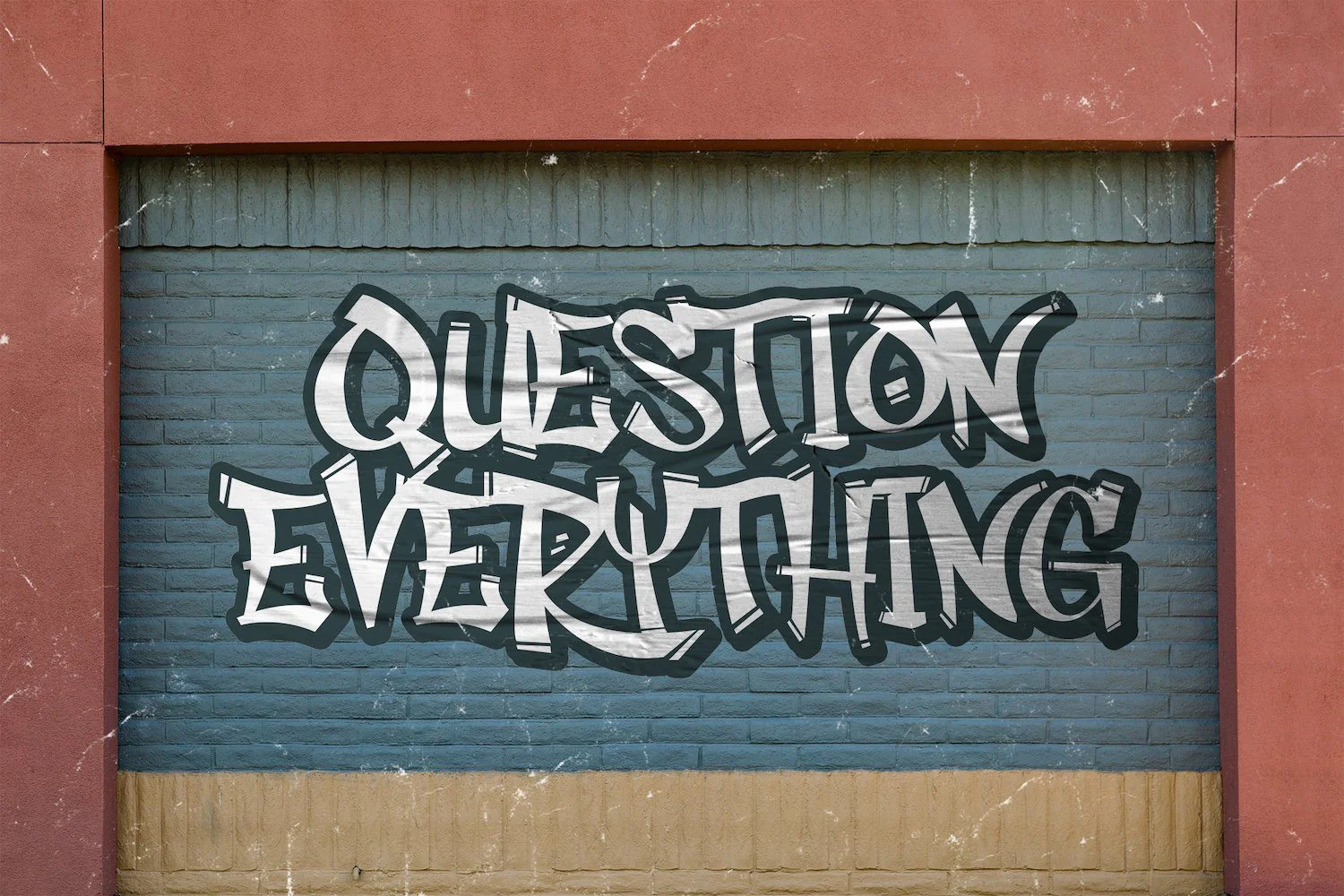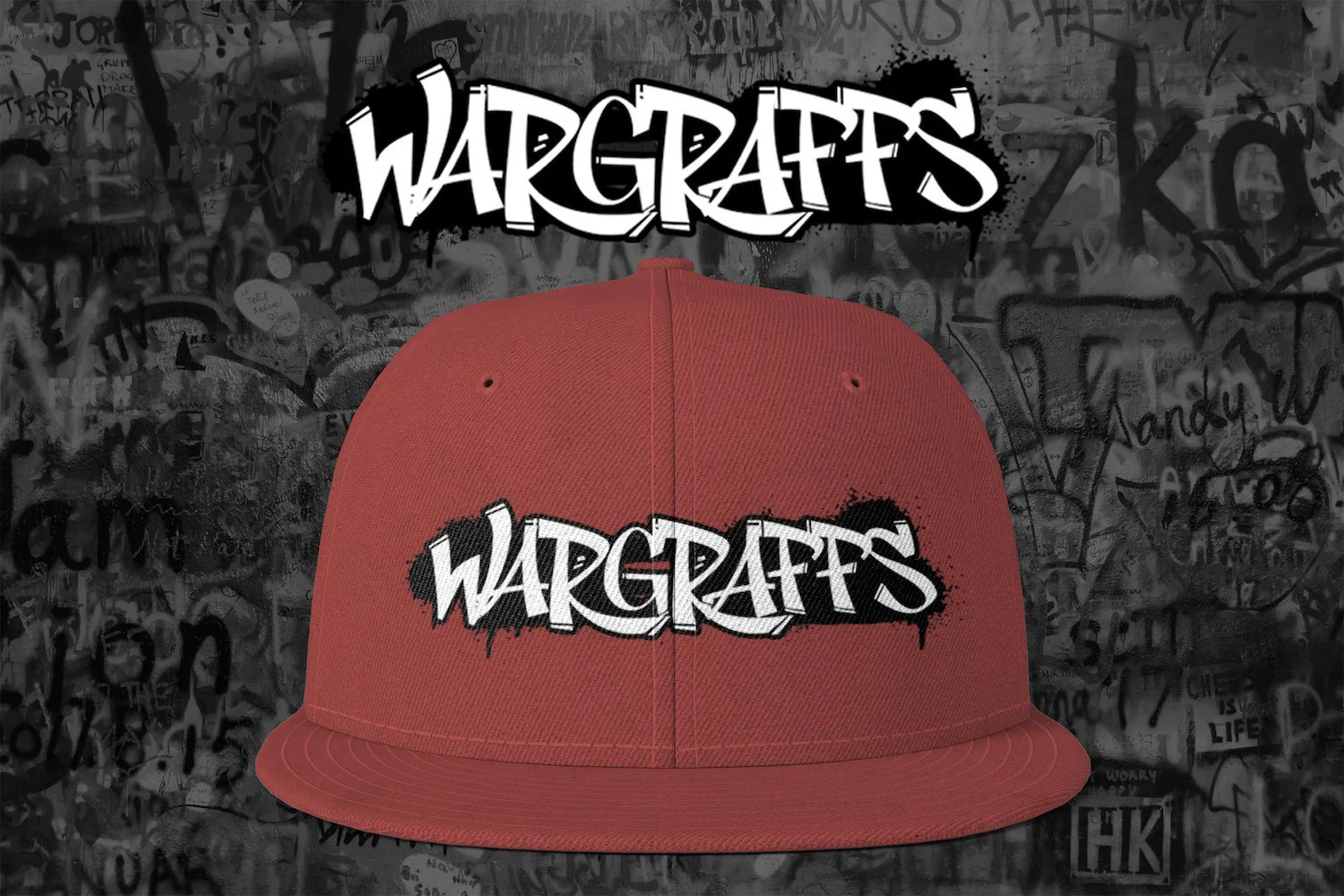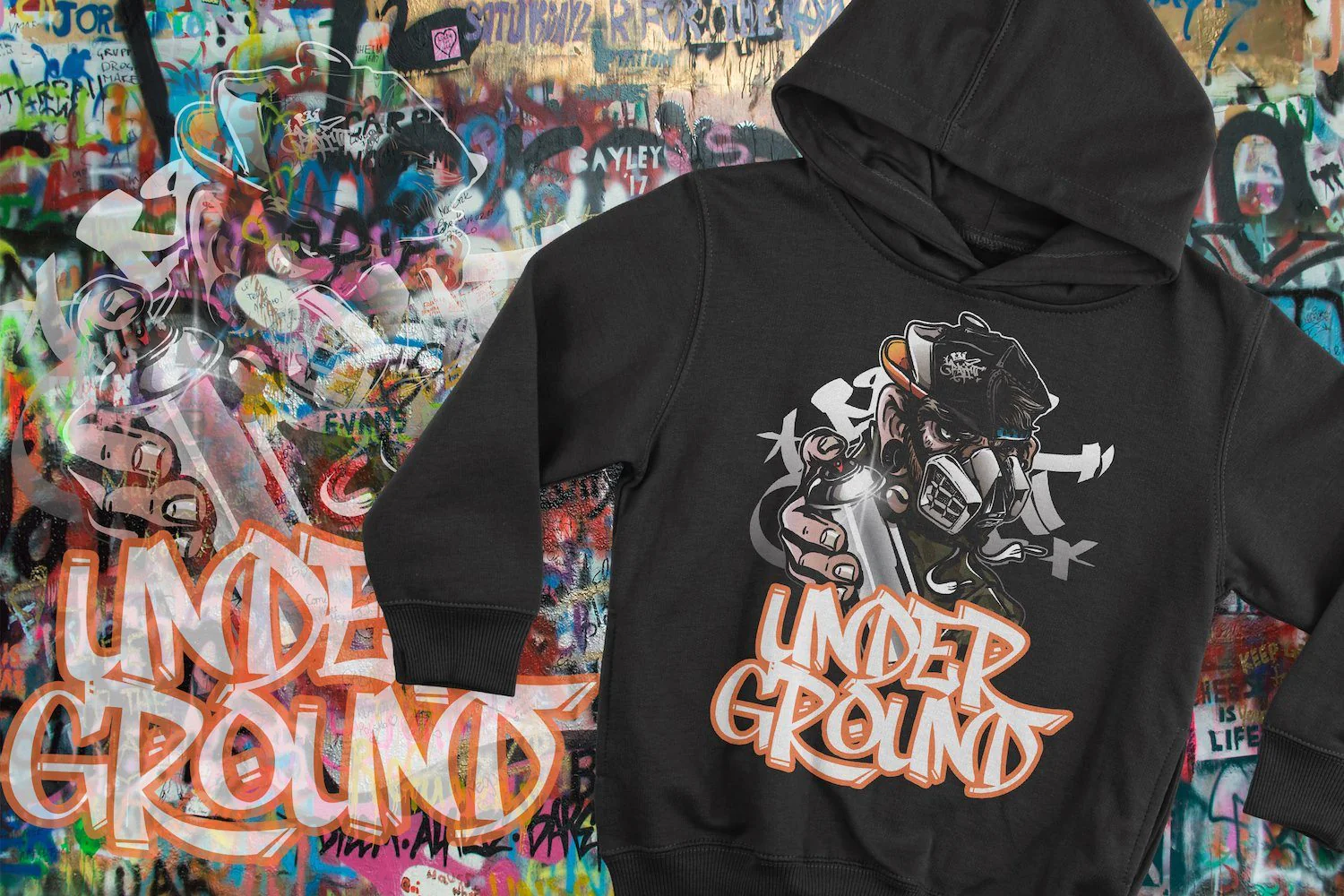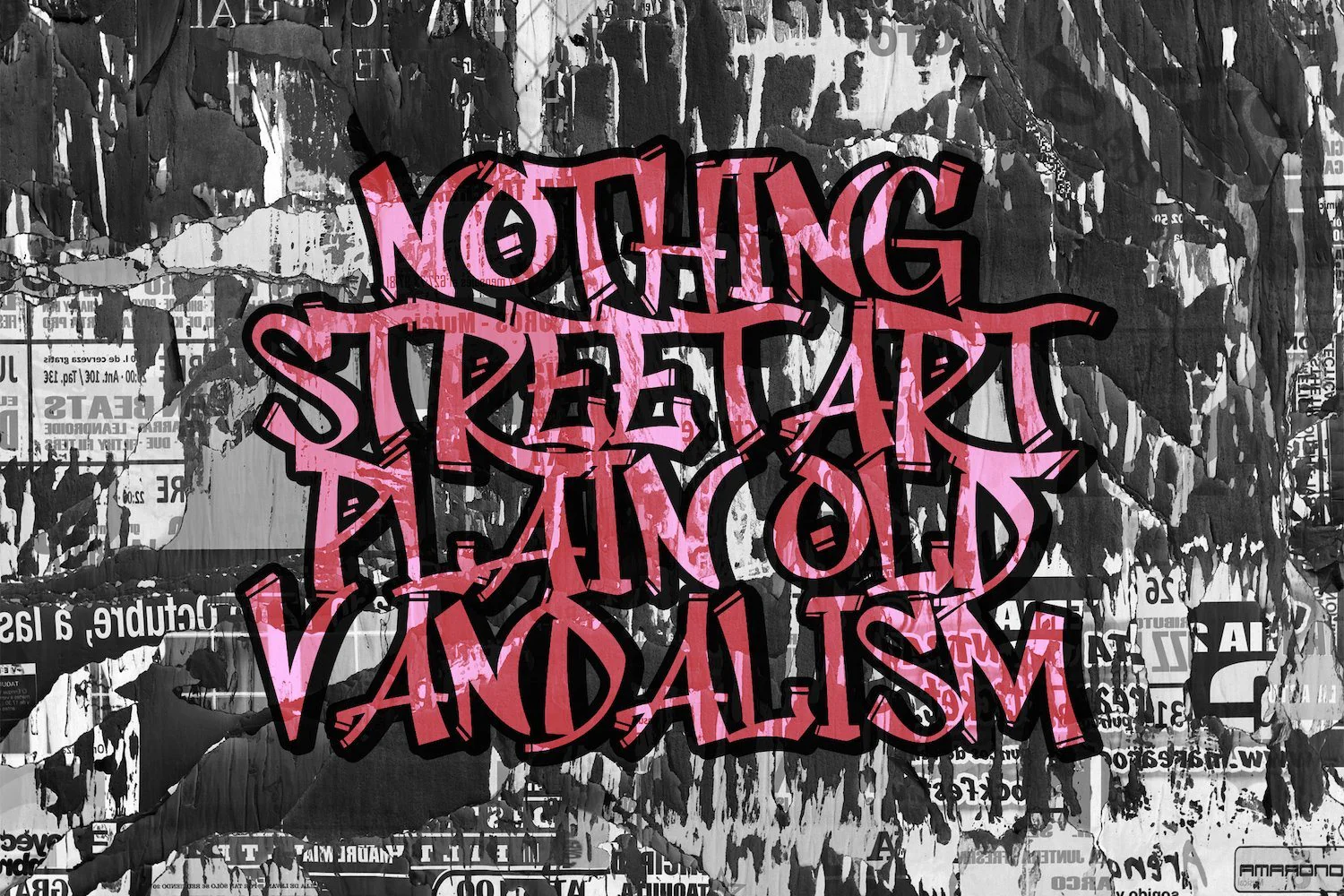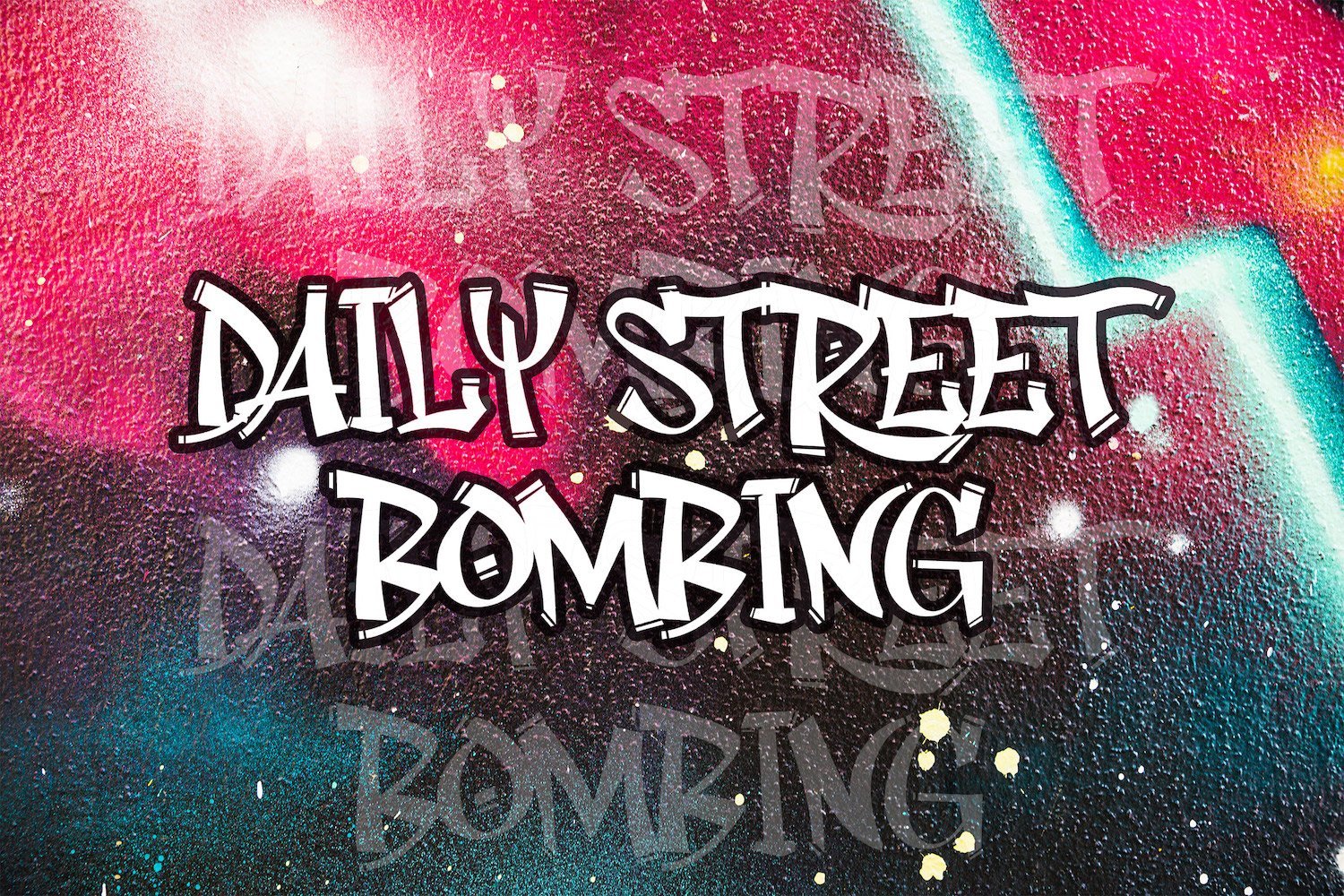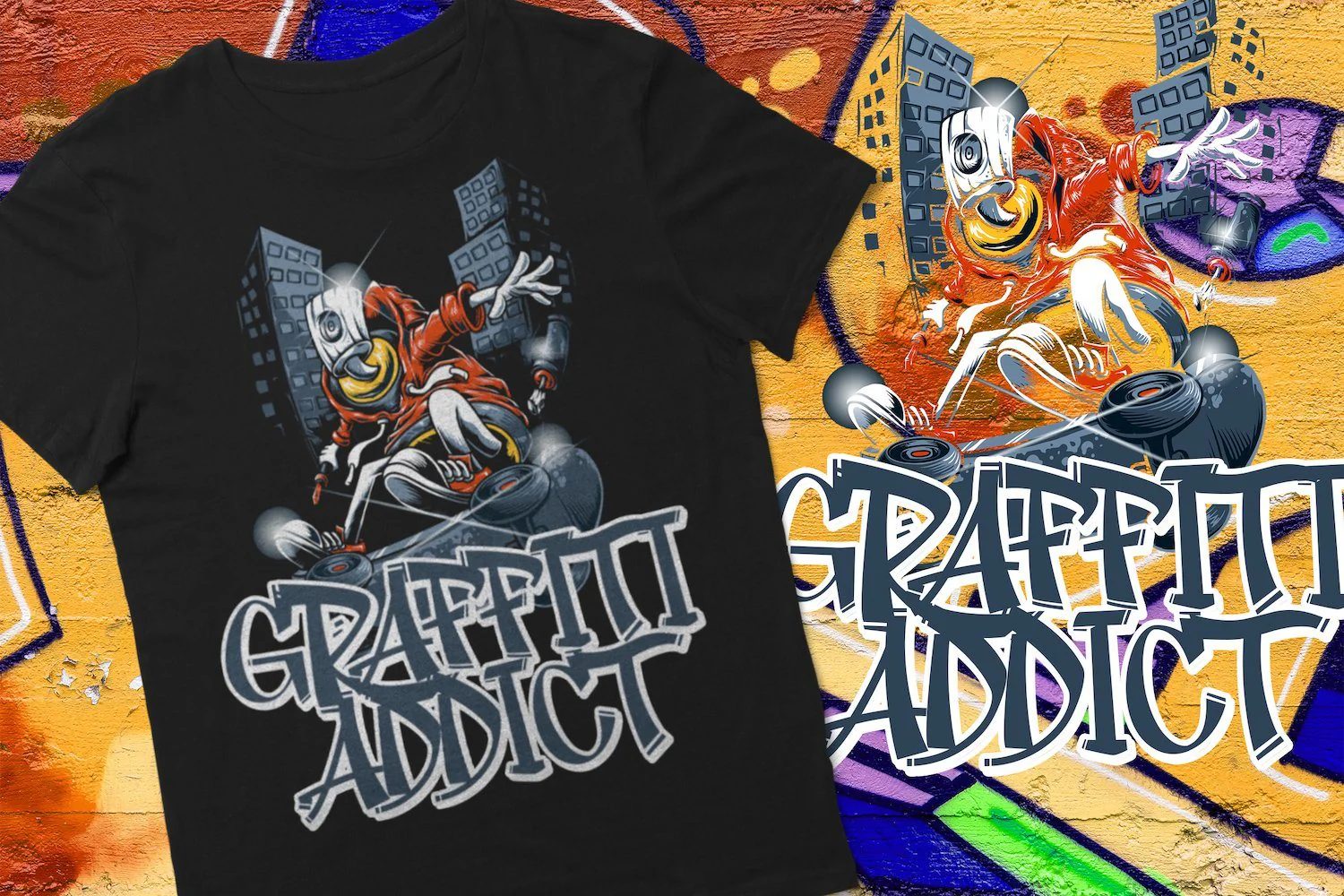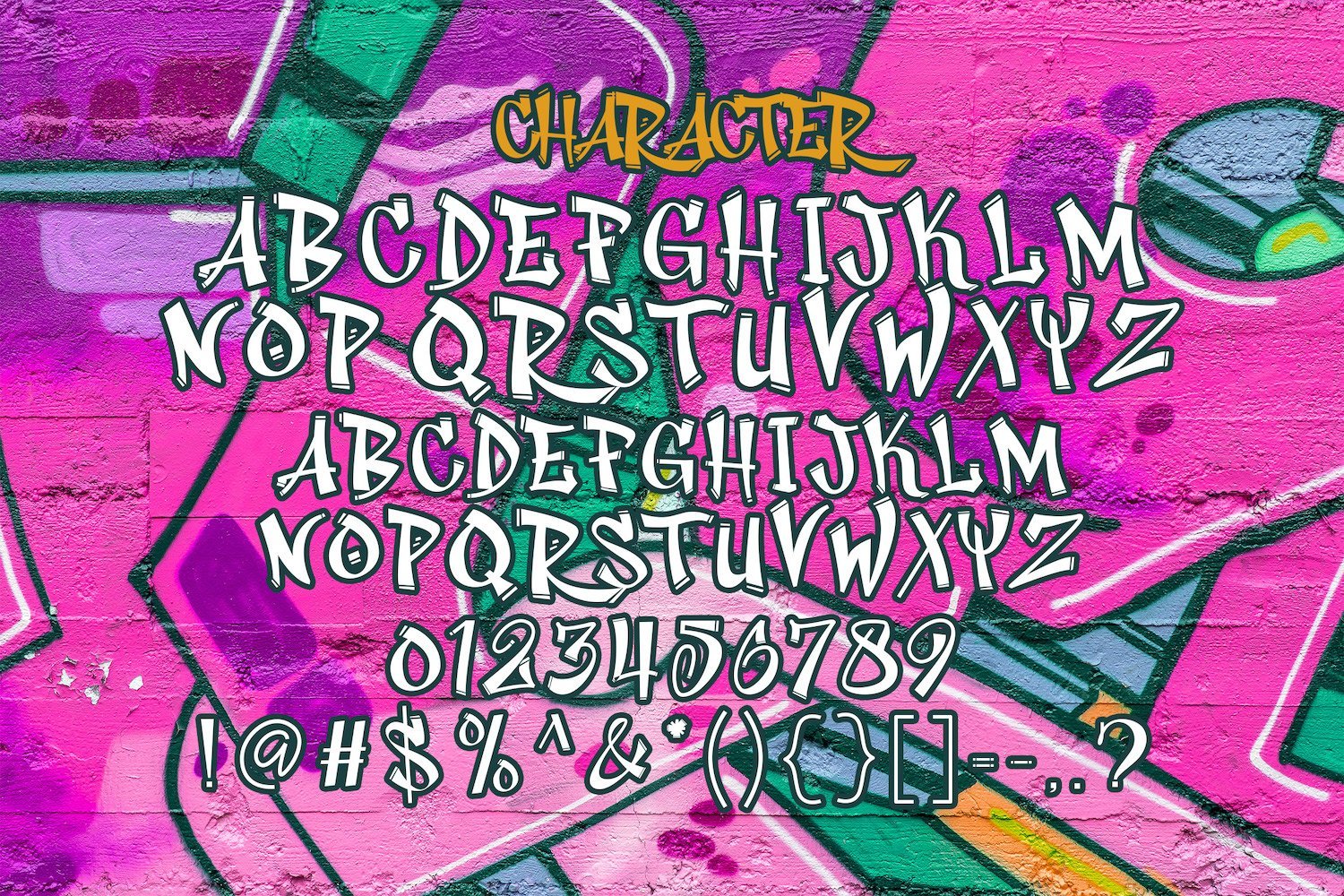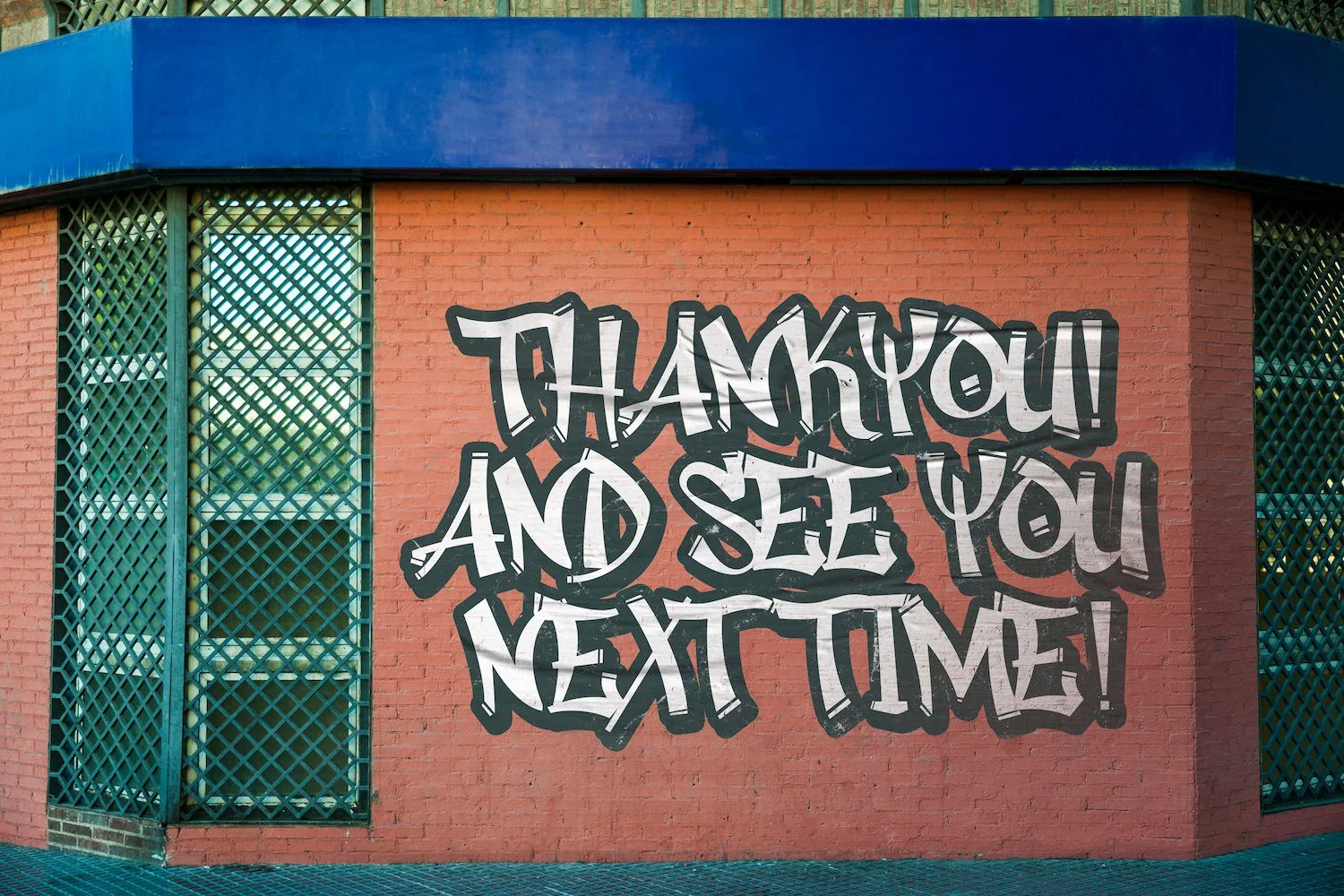
Rhieknuza - Graffiti Font
Introducing Rhieknuza - Graffiti Font
Rhieknuza is an incredibly unique and interesting display font. Add it to your most creative ideas and notice how it makes them come alive!